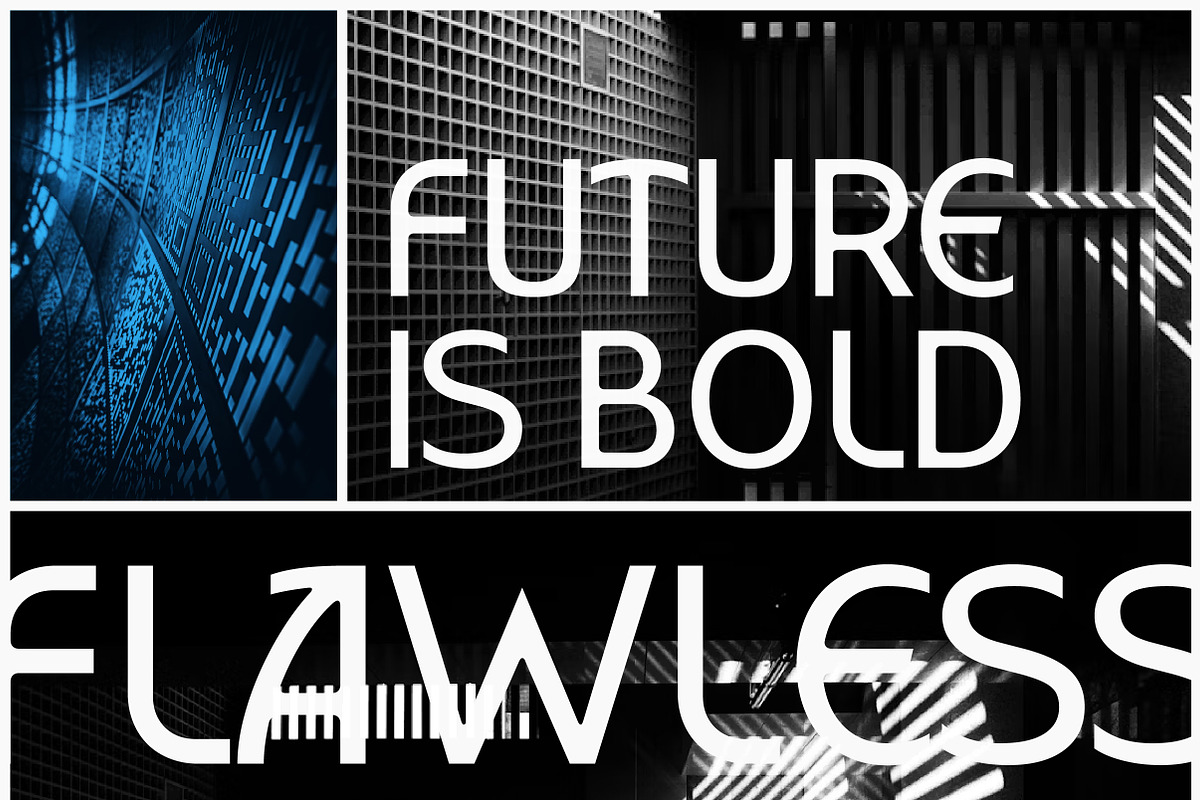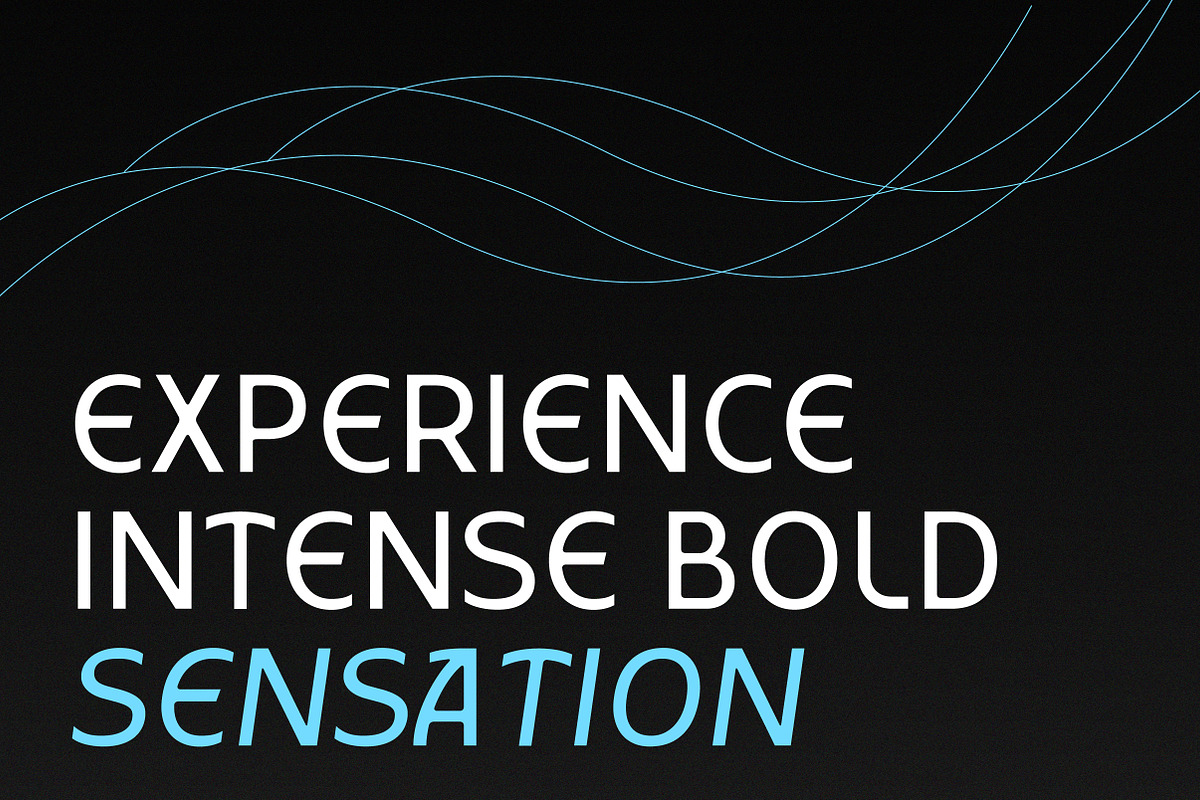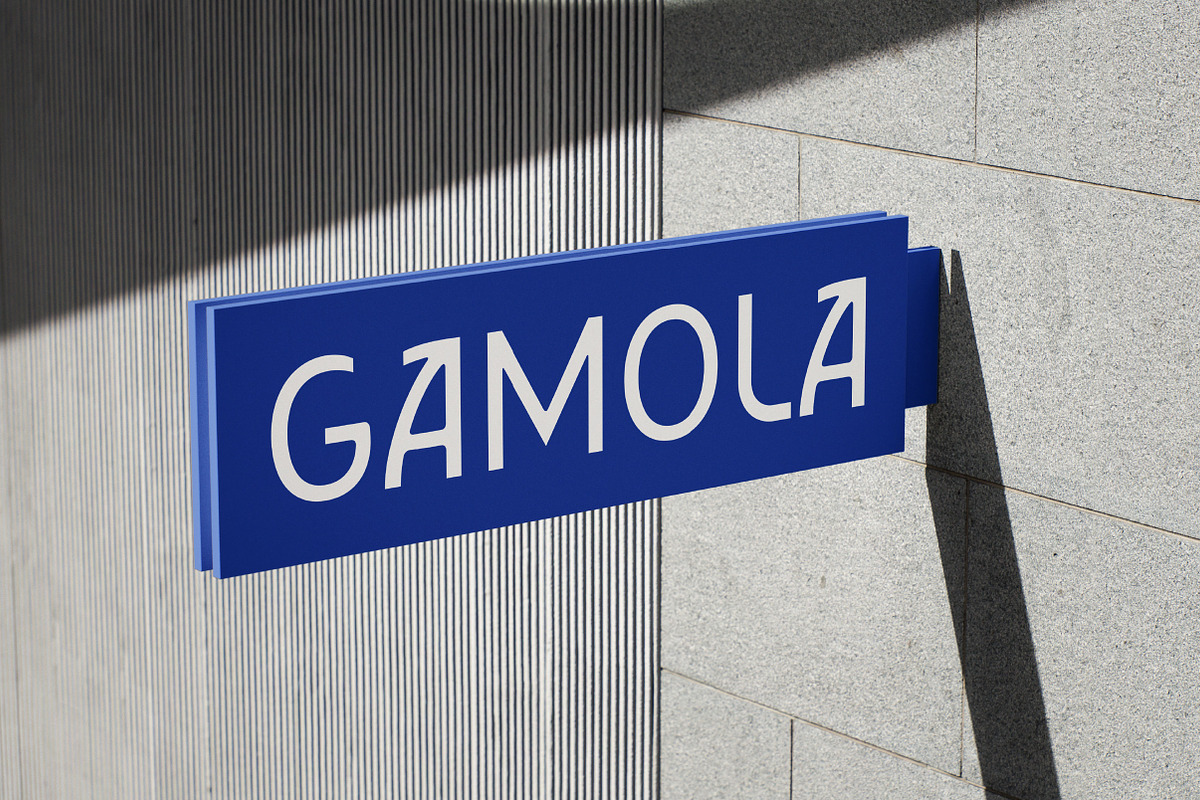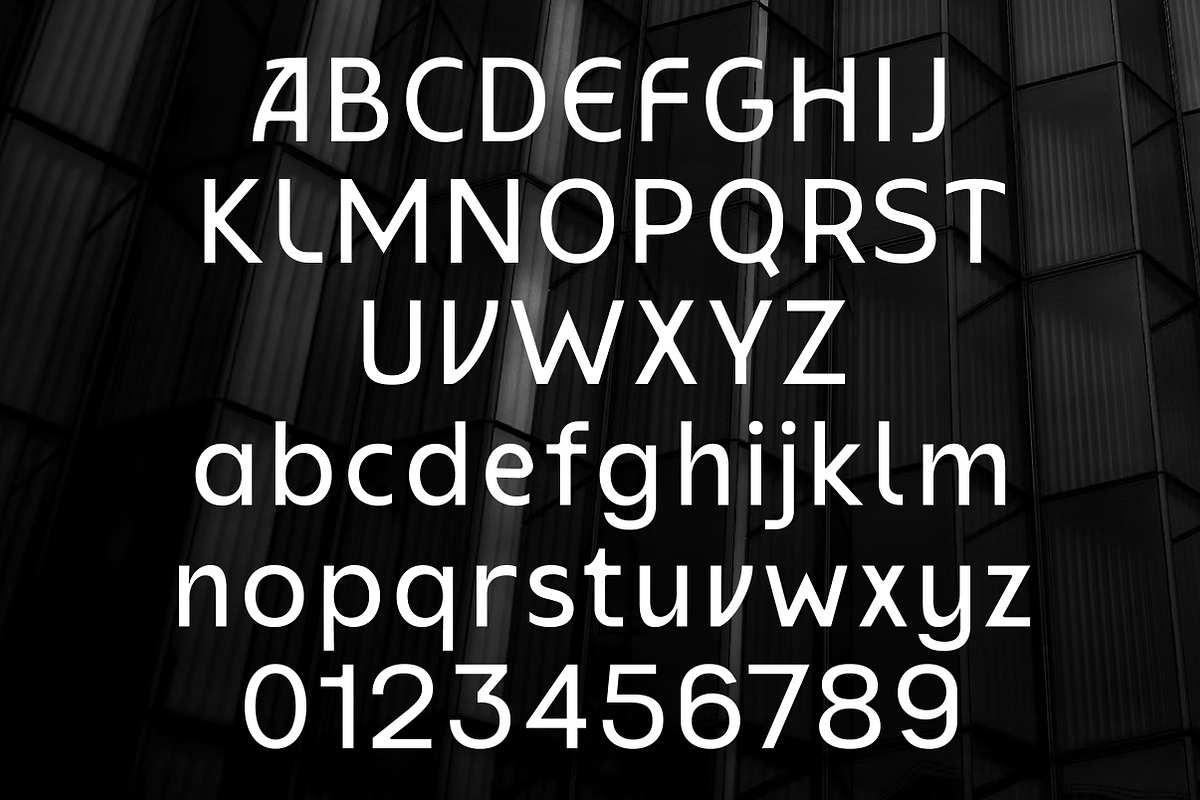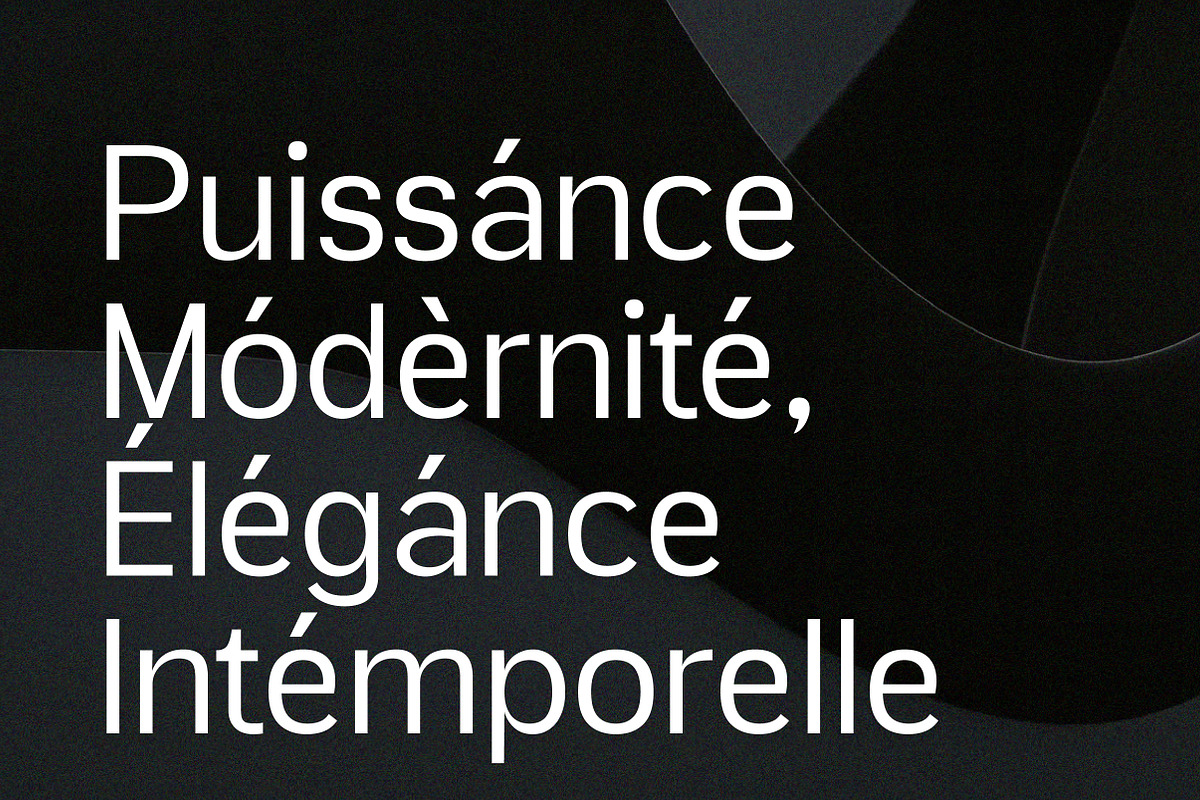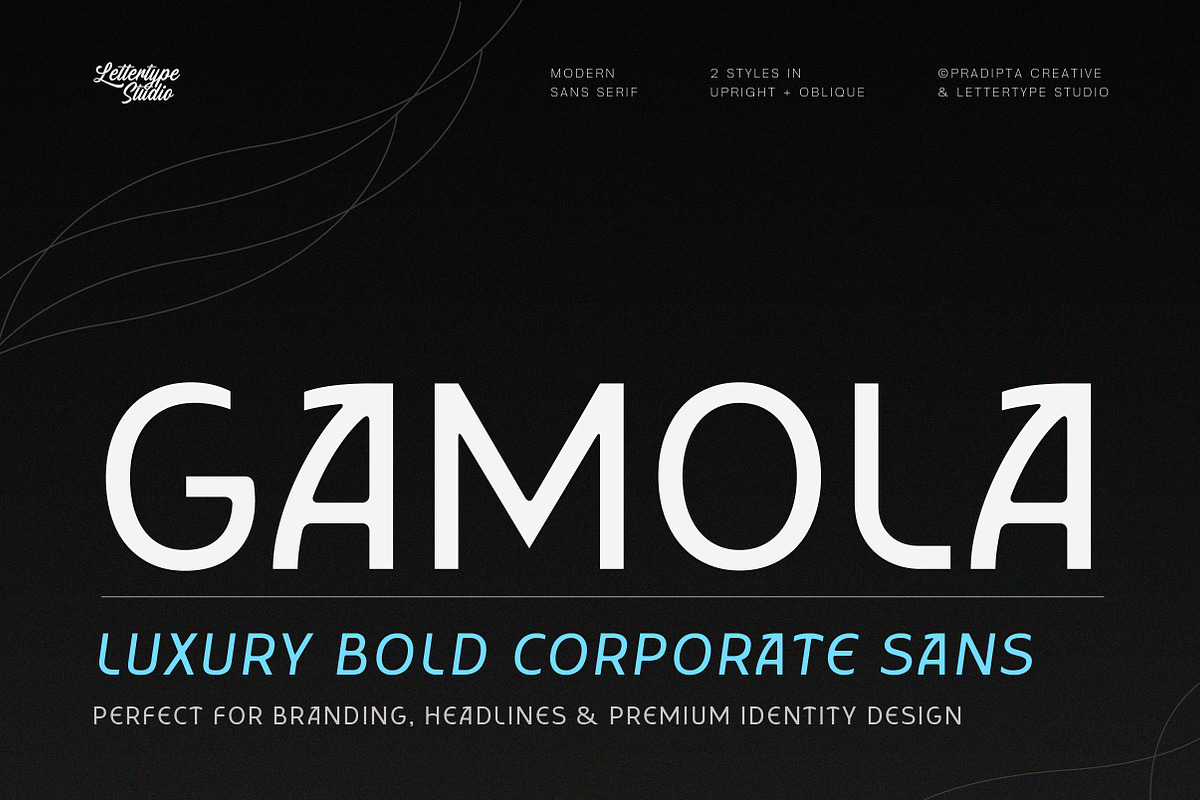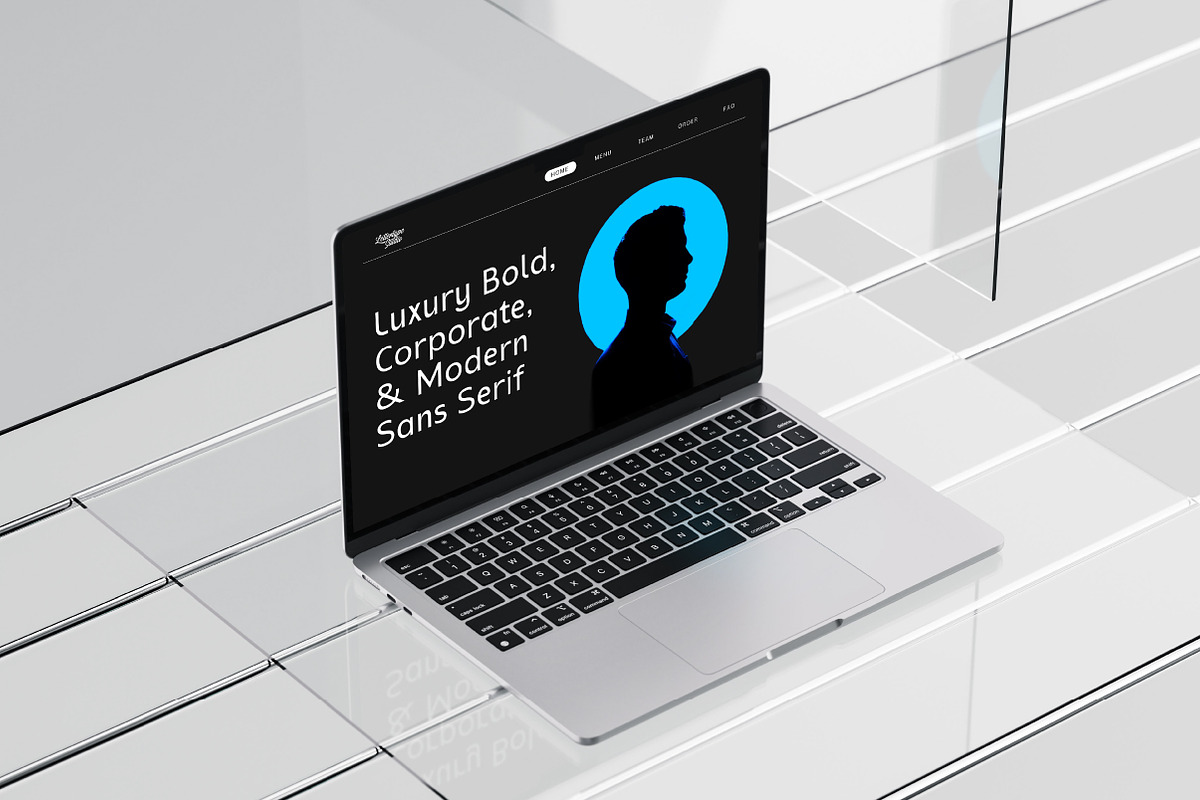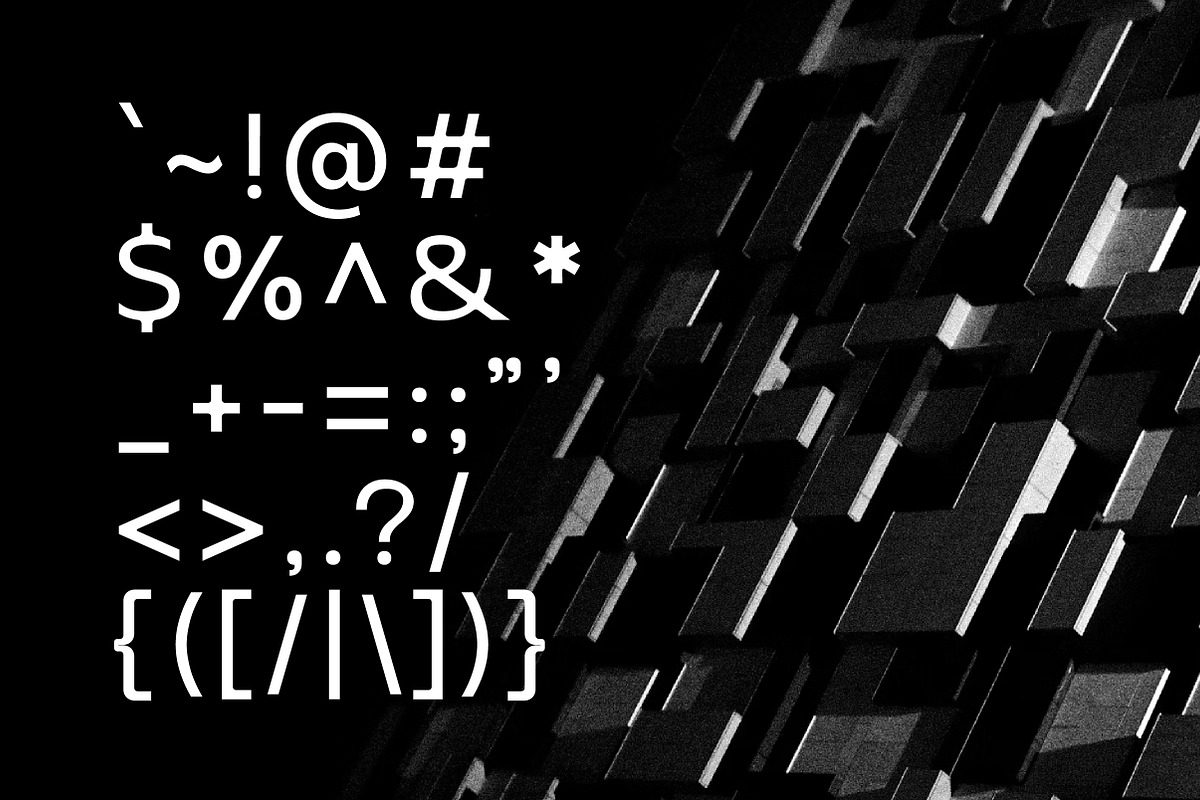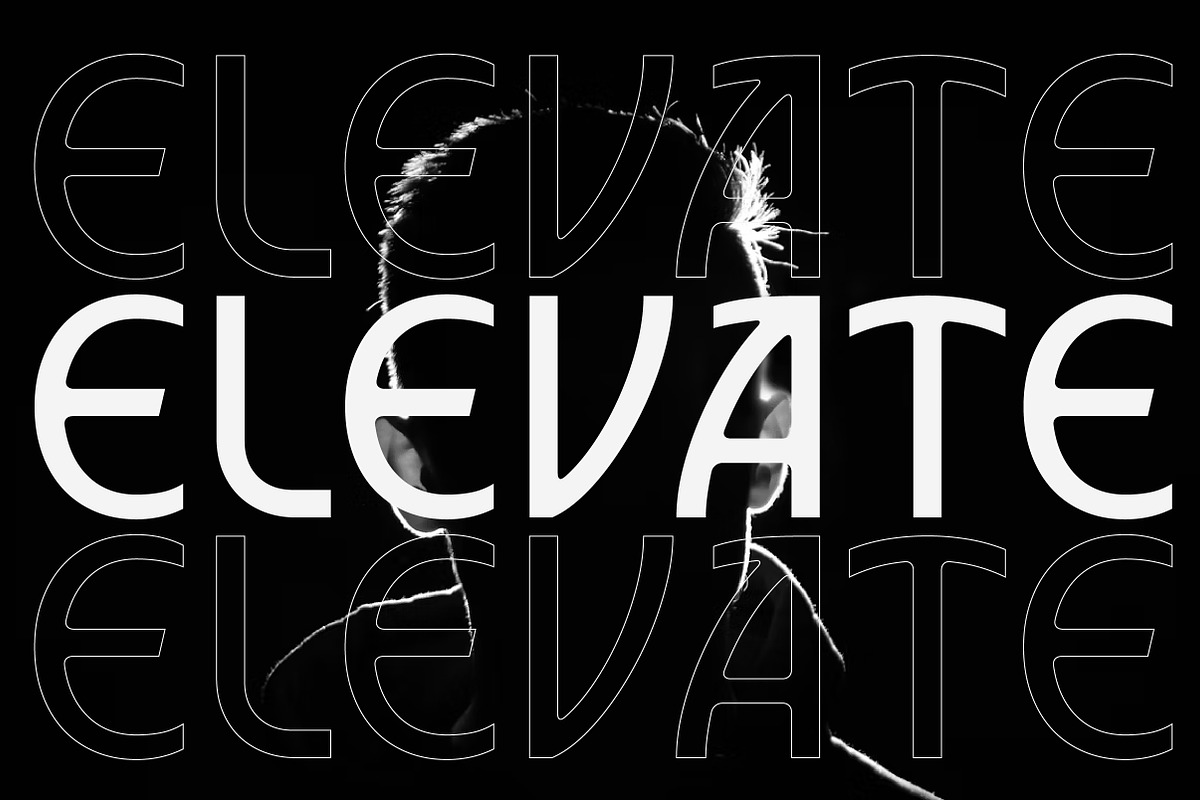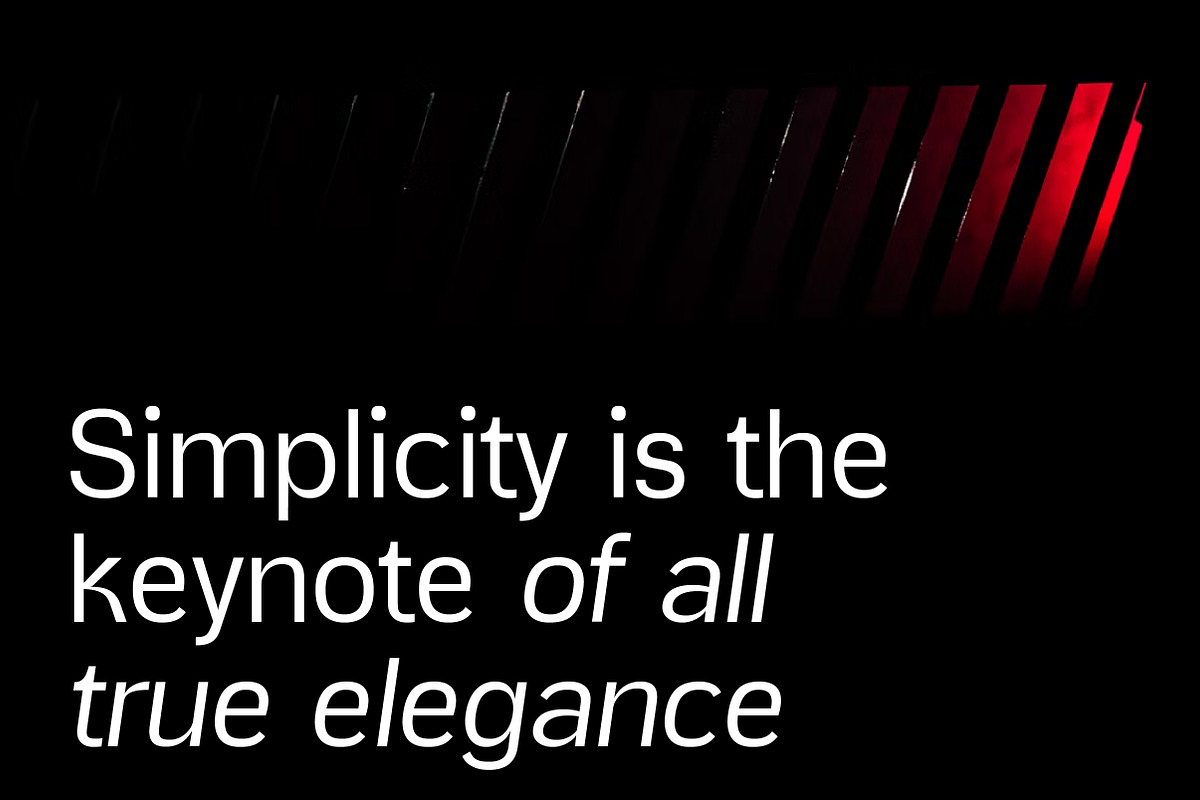
Gamola – Luxury Bold Corporate Sans
Gamola is a Luxury Bold Corporate Sans Serif is a high-impact typeface created for premium branding and bold corporate identity. With its clean geometric structure and refined proportions, Gamola brings a strong yet sophisticated feel—ideal for logos, branding kits, tech companies, business presentations, and editorial headlines. Its bold and confident style makes it stand out while maintaining a modern elegance.
Gamola is available in two styles: Upright and Oblique, offering flexibility for different design moods and layouts. It features full uppercase and lowercase letters, numbers, punctuation, and multilingual support with accented characters. Designed for professional use, Gamola is a sleek, modern sans serif font that elevates your brand presence.
Gamola Features:
- 2 Styles
- Upright & Oblique
- 408 Glyphs Total
- 265+ Language Support
- Corporate identity, branding kits & professional logos
- Editorial design, magazines & business presentations
- Tech company websites & modern startup visuals
- Product packaging, advertising & marketing assets
- Minimal posters & bold digital branding projects